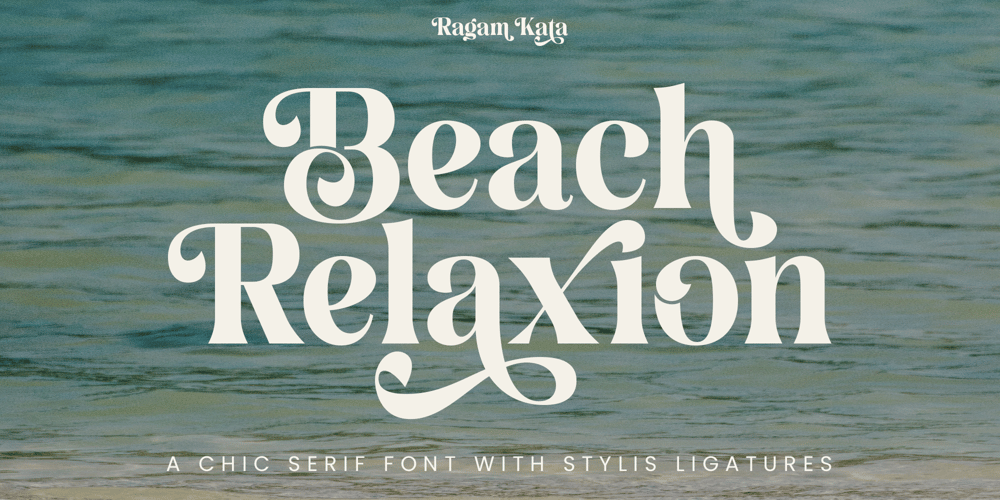
Beach Relaxion
Beach Relaxion font
Beach Relaxion Font Family was designed by Yogiswhara Dio Prakoso Riadi and published by RagamKata. Beach Relaxion contains 2 styles and family package options. Tropical Beachy – Retro serifTropical Beachy is a classic retro themed serif font that embodies a tropical and exotic beach feel. With the addition of a stylish ligature, this font gives a unique and eye-catching feel to your design project.Tropical Beachy is also equipped with a variety of stylish ligatures, which give a creative and modern touch to the appearance of the letters. This ligature allows you to create unique and interesting letter combinations, making this font suitable for logo designs, brand identity, and other design projects that want to be different and exclusive.Add Tropical Beachy to your font collection and bring a touch of the exotic tropics to your design work!Features :- Regular, Italic- Ligatures & Alternates- Letters, numbers, symbols, and punctuation- No special software is required to use this typeface even work in Canva- Multilingual SupportPlease contact us if you have any questions. Enjoy crafting and thanks for supporting us!Thank you.